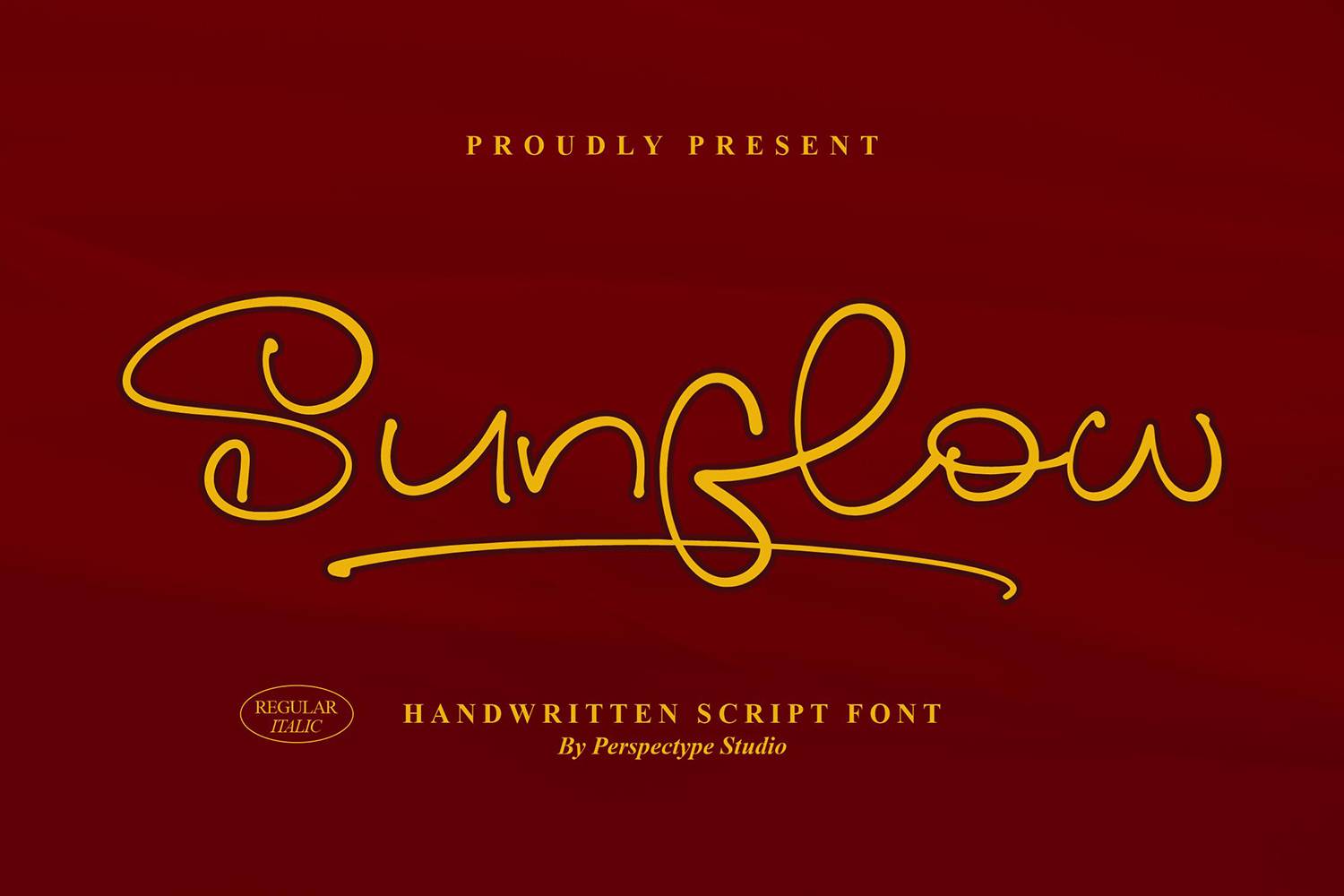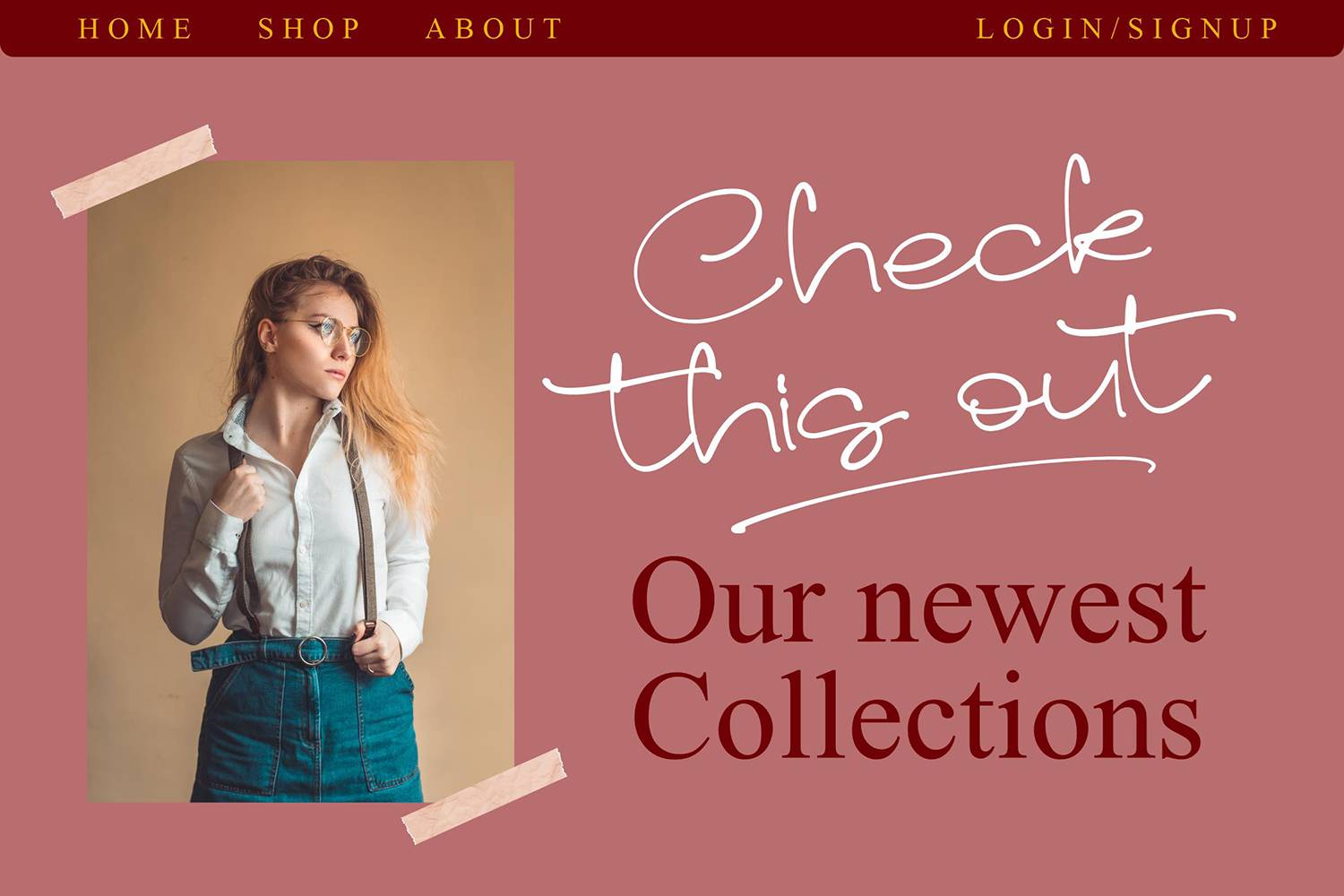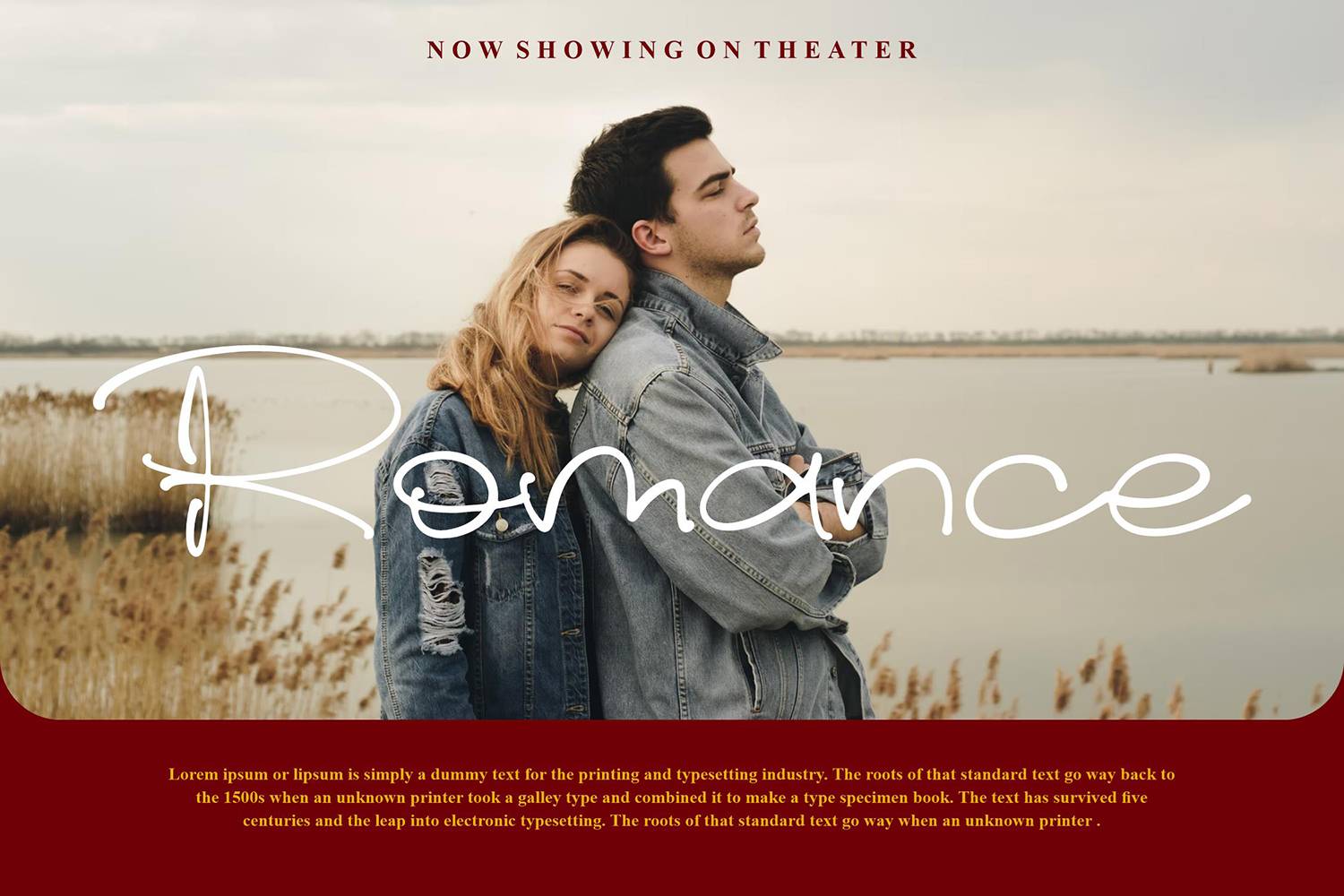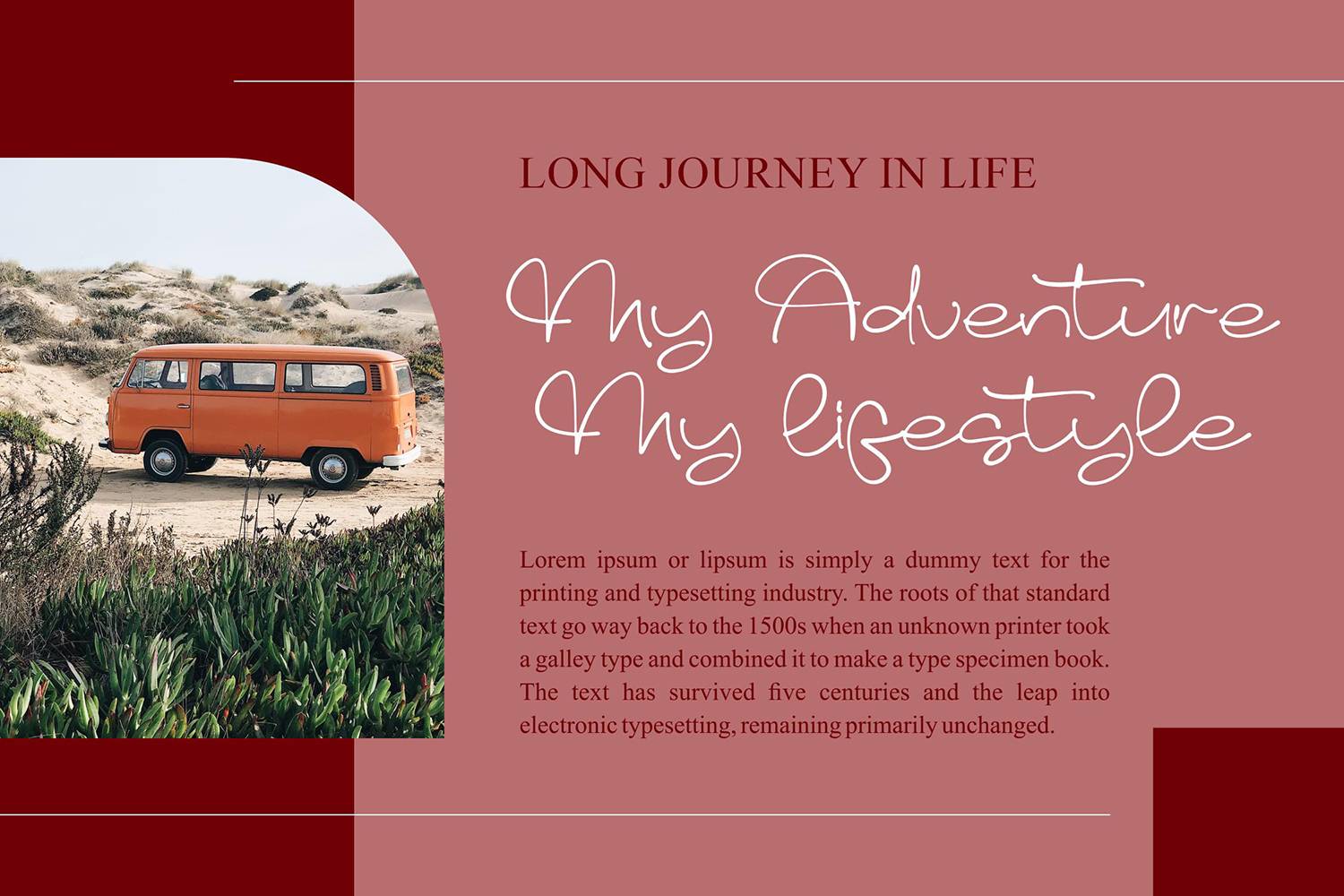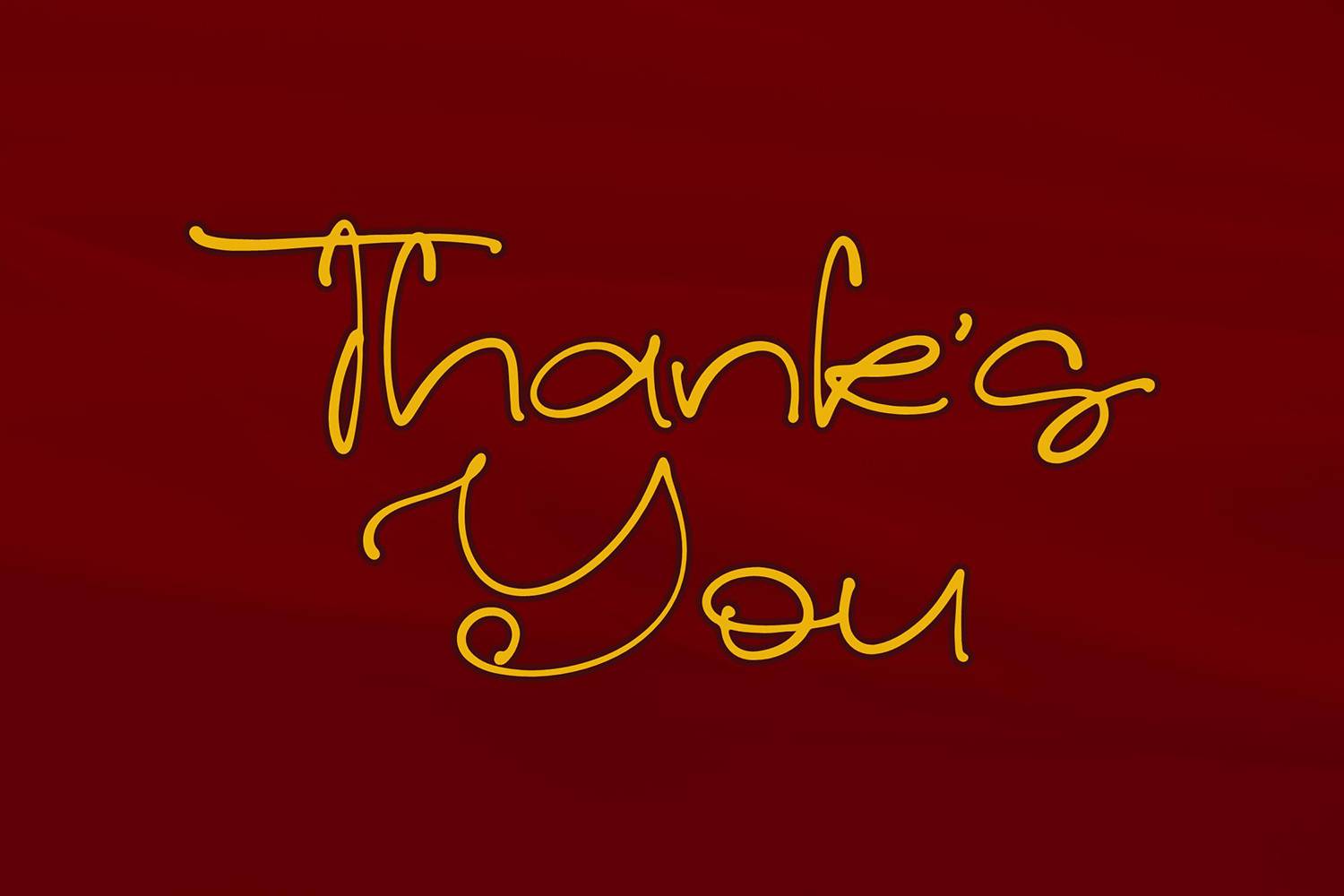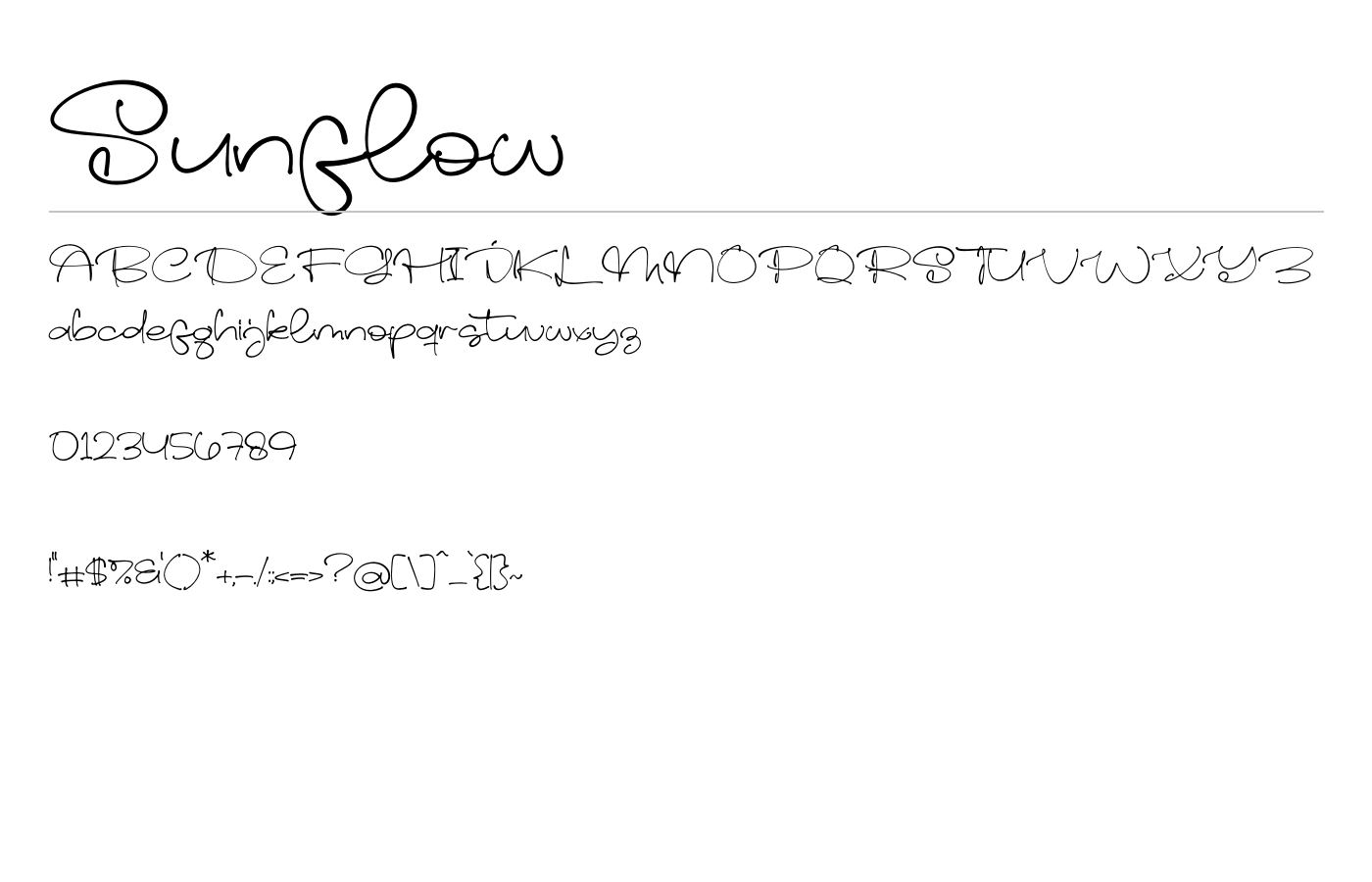
Sunflow is a whimsical, handwritten script font with delicate, thin strokes and lively, flowing letterforms that evoke a playful and artistic spirit. Its light weight and airy spacing make it ideal for creative projects, personal branding, and invitations where a casual yet elegant touch is desired. This font is perfect for adding a unique, handcrafted feel to logos, greeting cards, and stylish editorial designs.
Sunflow Font